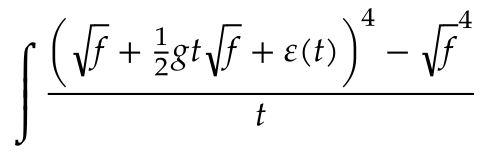
Default font gives
Pagella gives
I think your problem is actually unrelated to the font: by default the integral sign is not scaled. It’s just that the default font (New Computer Modern Math) has a larger symbol than TeX Gyre Pagella Math.
You can scale the symbol manually if you want:
#show math.equation: set text(font: "TeX Gyre Pagella Math")
$
stretch(integral, size: #3em) ((sqrt(f) + 1/2 g t sqrt(f) + epsilon(t))^4 - sqrt(f)^4)/t
$
The integral is not affected by lr alone. But here’s a late discovery, lr + mid do work together to stretch the integral:
$ lr(mid(integral) f(x) / g(x) dif x) $
But this does not work with integration limits, unfortunately.